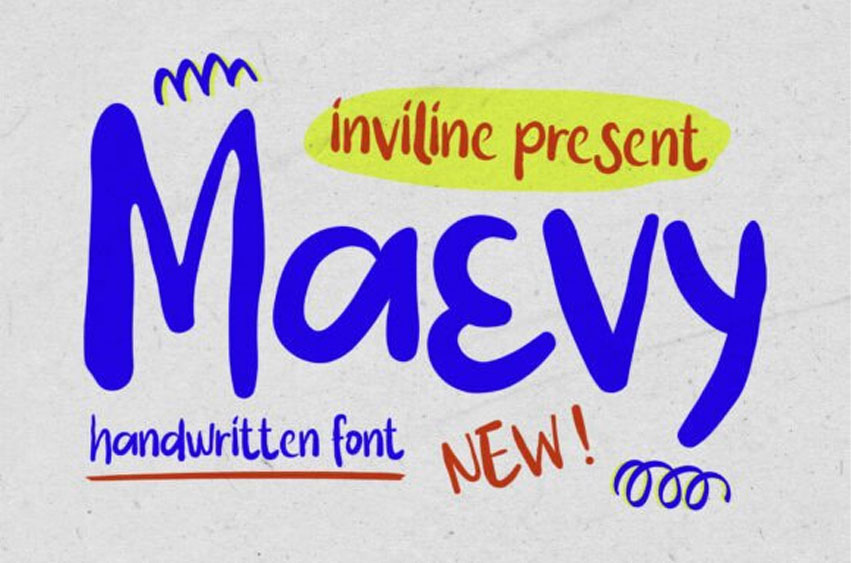
Maevy Regular Font
Maevy Regular Font is a playful handwritten font with a bold and casual personality. Designed to bring a childlike charm and cheerful energy to your projects, it’s perfect for greeting cards, kids’ designs, educational posters, social media content, and product packaging.
The organic shapes and fun vibes make Maevy ideal for anything that needs a personal and approachable touch.